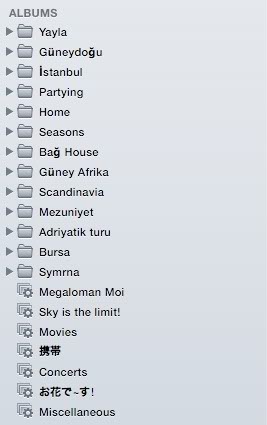
Is it possible to change iPhoto's default font? I am running Lion and using iLife 2011. As you can see in the picture below, Turkish and Japanese characters appear bolder, which is super annoying 😡 This wasn't the case in the previous version of iPhoto. The other iLife applications don't have this problem as far as I am concerned. I think the default font that iPhoto is currently using (because the font was different in the previous version) is causing this. Is there a way to change it?